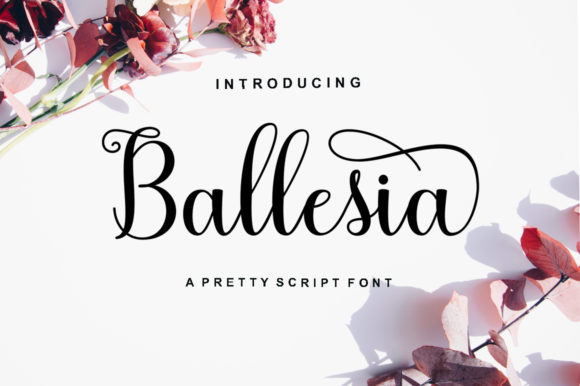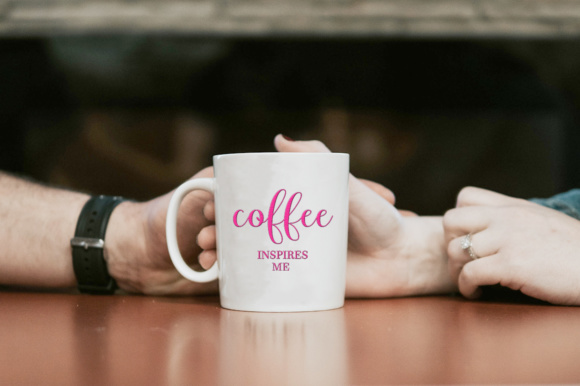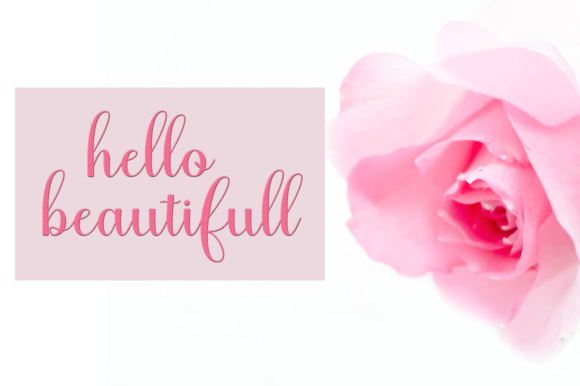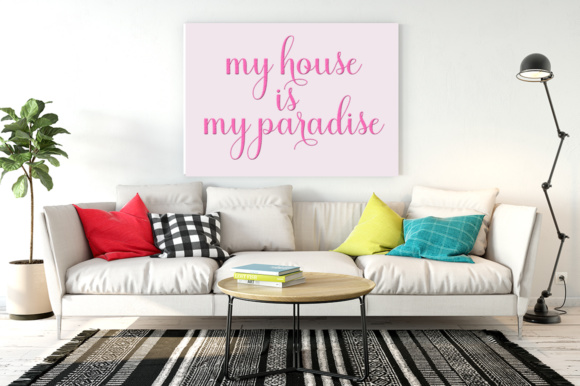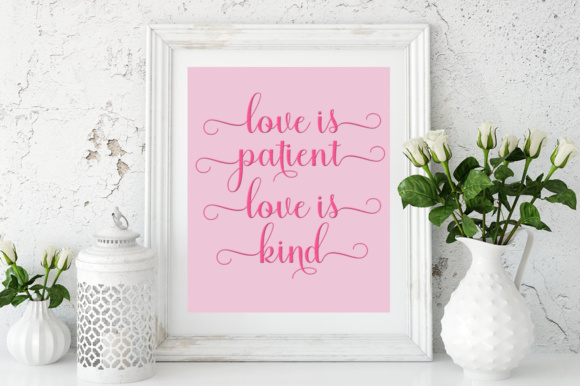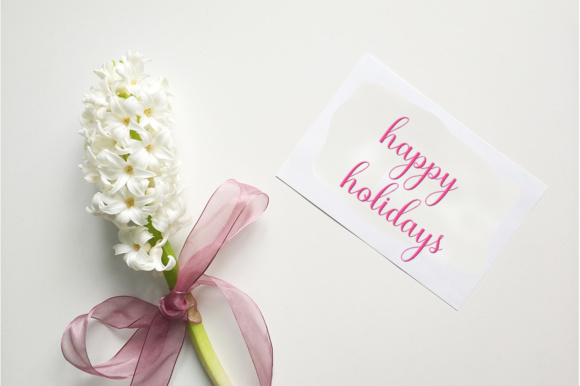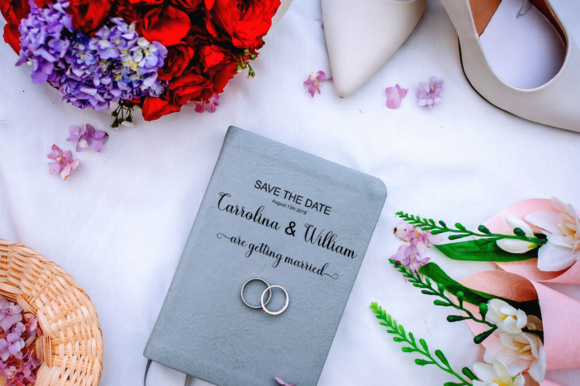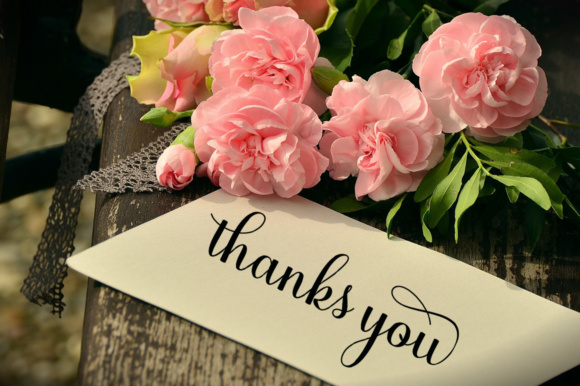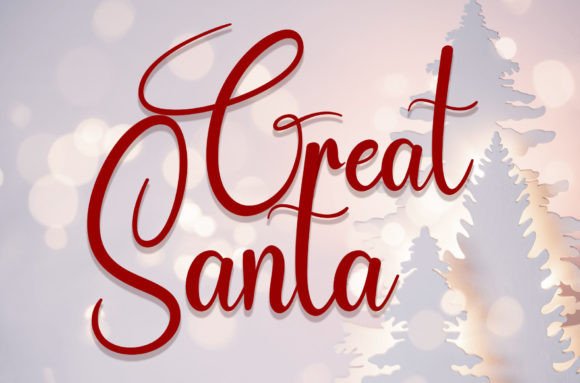
Ballesia Script Font
About Ballesia Script Font
Ballesia Script is a lovely script font. It’s casual, dynamic and has a dancing baseline. It’s easy and simple to use and is perfect for branding, logos, greeting cards, wedding Stationery, quotes, and much more!